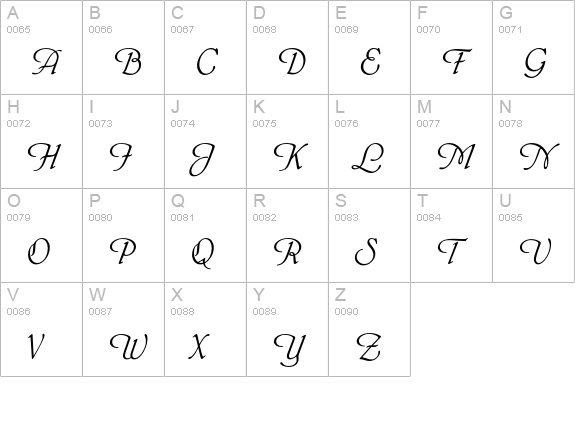
PhyllisEF Font Details
Introducing PhyllisEF, a captivating and versatile font that is sure to make a lasting impression on any design project. With its elegant curves and bold strokes, PhyllisEF exudes a sense of sophistication and professionalism. This font is perfect for a wide range of applications, from branding and logo design to editorial layouts and website headers. But what sets PhyllisEF apart from other fonts is its accessibility. Not only does it boast a stunning aesthetic, but it is also available completely free of charge. Yes, you read that right - PhyllisEF is freely available to download at FontsMarket.com. This means that designers and creatives of all levels can enjoy the beauty and functionality of this remarkable font without having to worry about breaking the bank. Whether you're a seasoned graphic designer looking to add a touch of elegance to your latest project or a hobbyist just starting out on your design journey, PhyllisEF is the perfect companion. Its clean and modern design lends itself to a variety of styles and themes, making it a go-to choice for any creative endeavor. So why wait? Download PhyllisEF today from FontsMarket.com and discover the endless possibilities this exceptional font has to offer. With its timeless beauty and the added bonus of being completely free, PhyllisEF is a must-have addition to any designer's toolkit. Don't miss out on the opportunity to elevate your designs with this remarkable font - try PhyllisEF today and let your creativity soar.